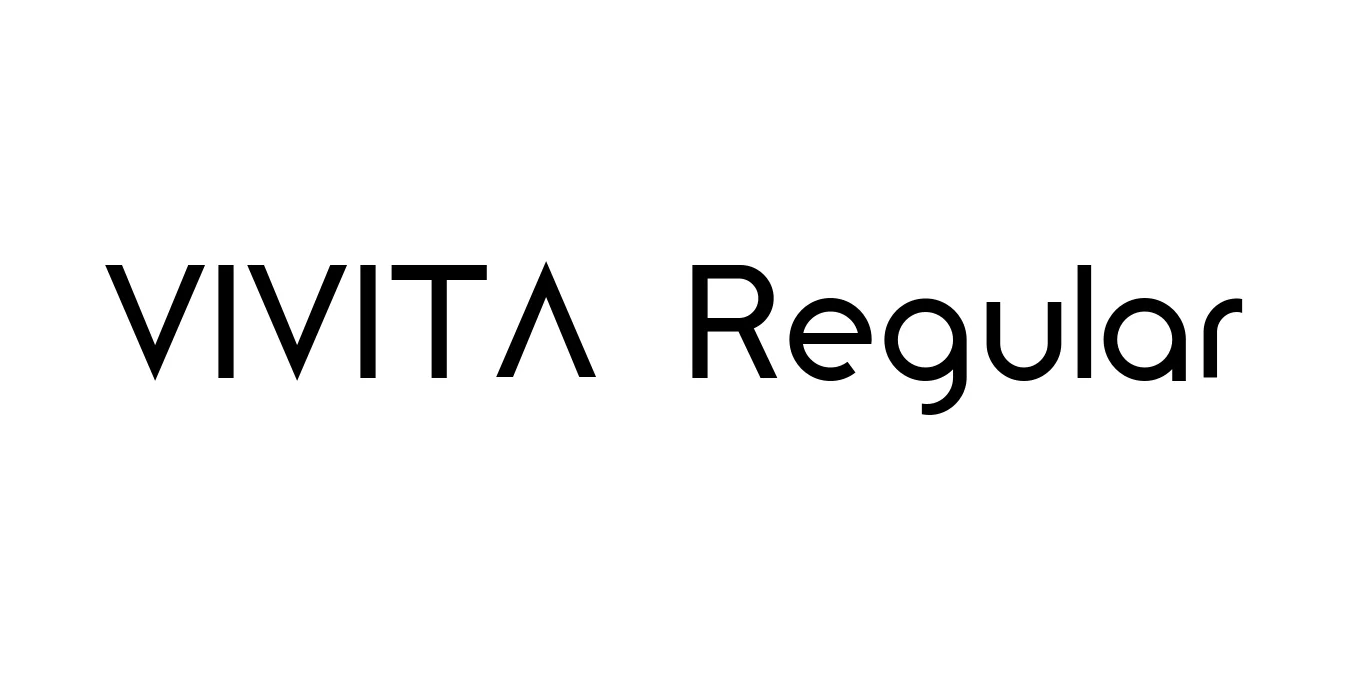
VIVITA Regular
Designed by Rodrigo Araya Salas
VIVITA Regular is a contemporary geometric sans-serif typeface designed to bring a sense of modernism and clarity to digital and print layouts. Developed by the renowned designer Rodrigo Araya Salas, this font features balanced proportions and clean lines that make it highly legible at various scales, ensuring a professional look across different media environments.
The typeface draws inspiration from minimalist design principles, making it an excellent choice for corporate branding and sophisticated editorial projects. Its versatile nature allows it to function effectively in both high-impact headlines and functional body text, providing a sleek aesthetic for creative professionals seeking a refined and structural visual identity.
VIVITA Regular Best Uses
Ideal for creating modern and minimalist corporate identities and logo designs.
Excellent for bold, attention-grabbing website headers and hero sections.
Perfect for sophisticated magazine layouts, brochures, and clean body text.